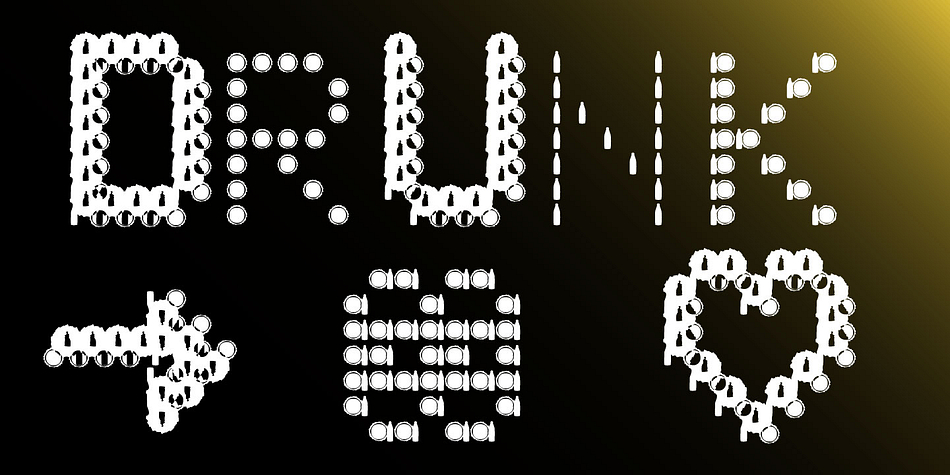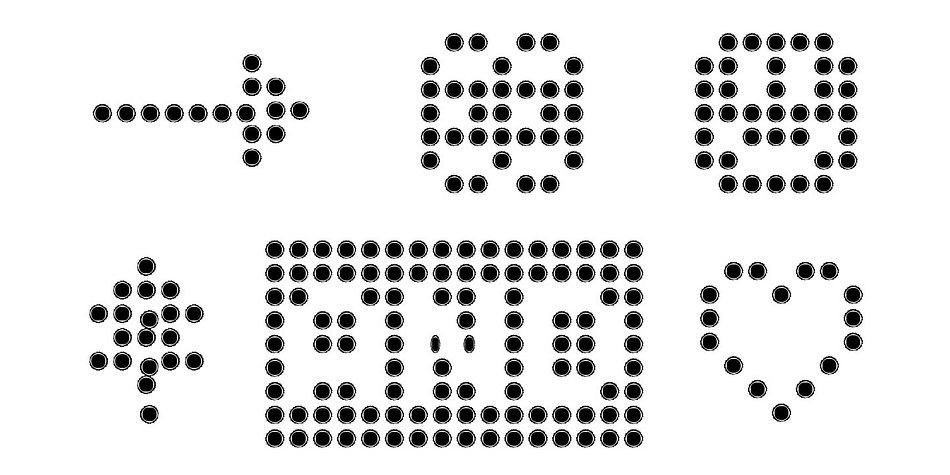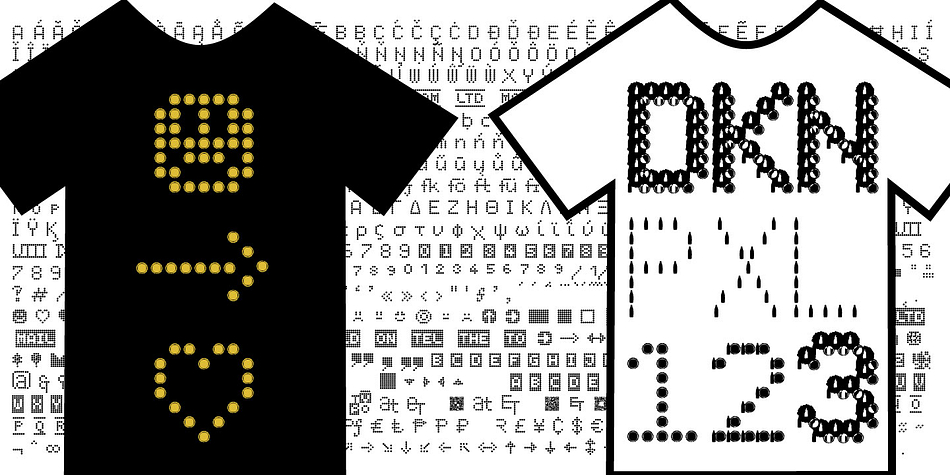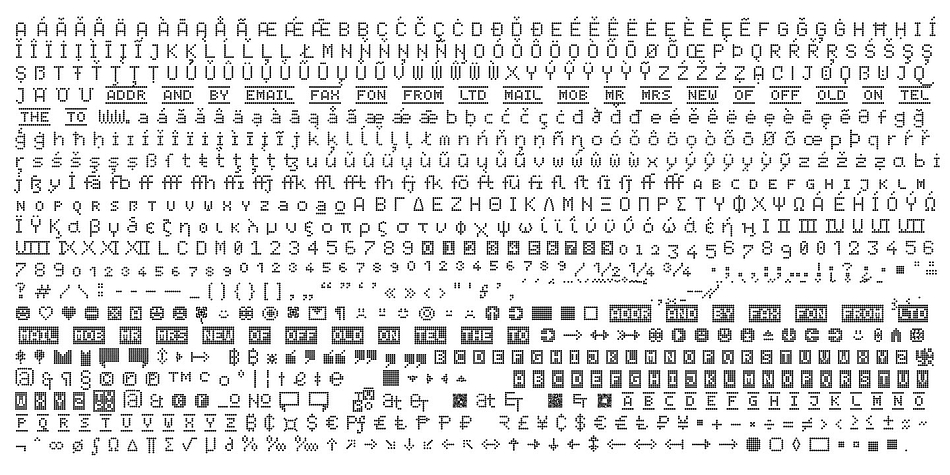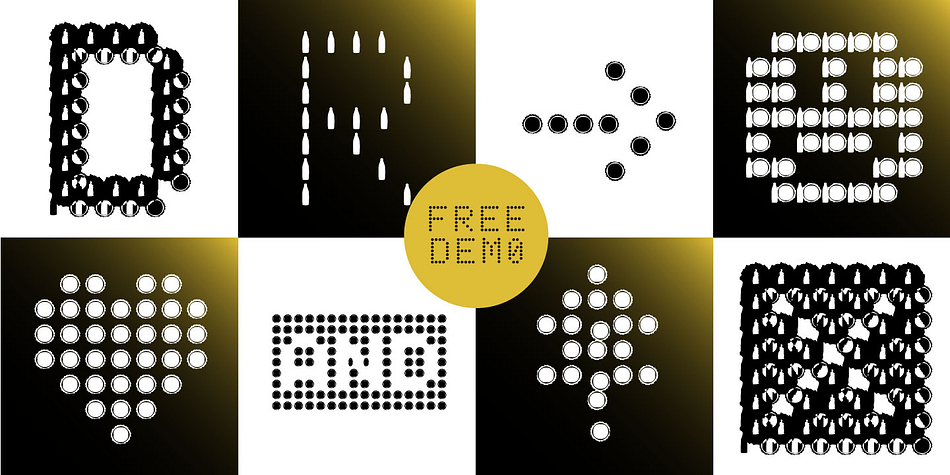
Designed by Manuel Viergutz, Drunken Pixel is a novelty, pixel and dingbat font family. This typeface has twenty-four styles and was published by Typo Graphic Design.
The typeface Drunken Pixel is designed from 2021 for the font foundry Typo Graphic Design by Manuel Viergutz.
The font system (sans-serif, slab serif, small caps & unicase) of the display typeface is inspired in the past and present.
20 font-styles (Bottle, BottleCork, Crown Cork × Sans Serif, Small Caps, Slab Serif, Unicase) + 4 icon-styles with 903 glyphs (Adobe Latin 3) incl. 300+ decorative extras like icons, arrows, dingbats, emojis, symbols, geometric shapes, catchwords, decorative ligatures (type the word #LOVE for ❤ or #SMILE for ☺ as OpenType-Feature dlig) and stylistic alternates (6 stylistic sets). PROST!
For use in logos, magazines, posters, advertisement and packaging plus as webfont for decorative headlines. The font works best for display size.